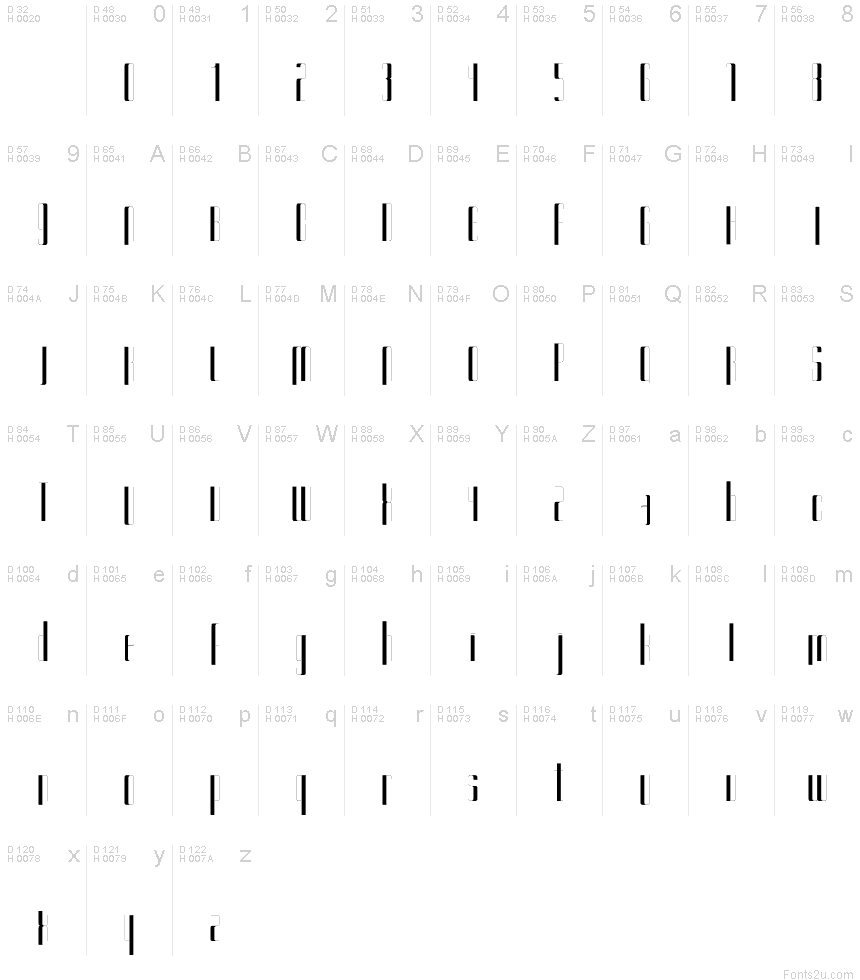
Kurkku is a free high-contrast retro display font with extremely narrow letterforms and a severe, fashion-led silhouette. Broad vertical strokes meet hairline curves and crossbars, like strips of cut paper. The effect is crisp and unusual.
Its refined contrast can suit both fashion publishing and experimental music posters, despite their different audiences. Packaging for perfume or cosmetics can draw on the tall proportions and precise curves. In branding, the lettering gives an art-conscious label a cool, unconventional signature.